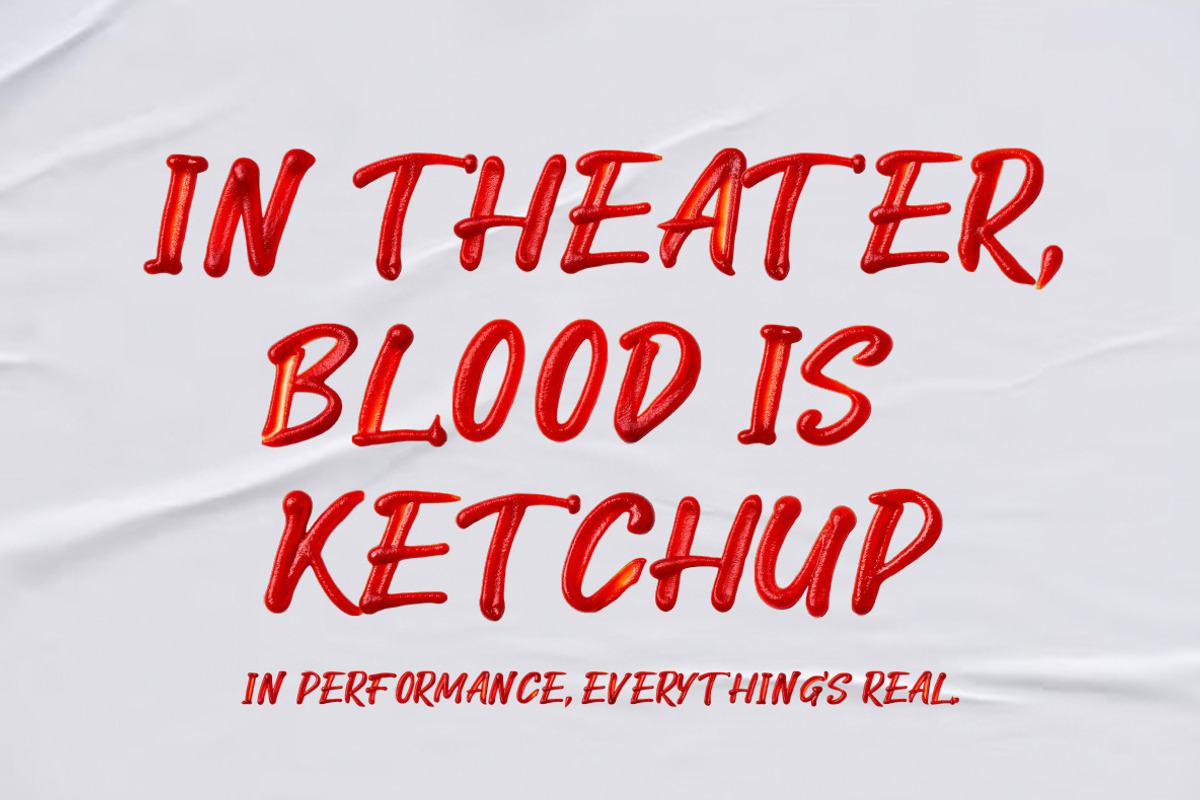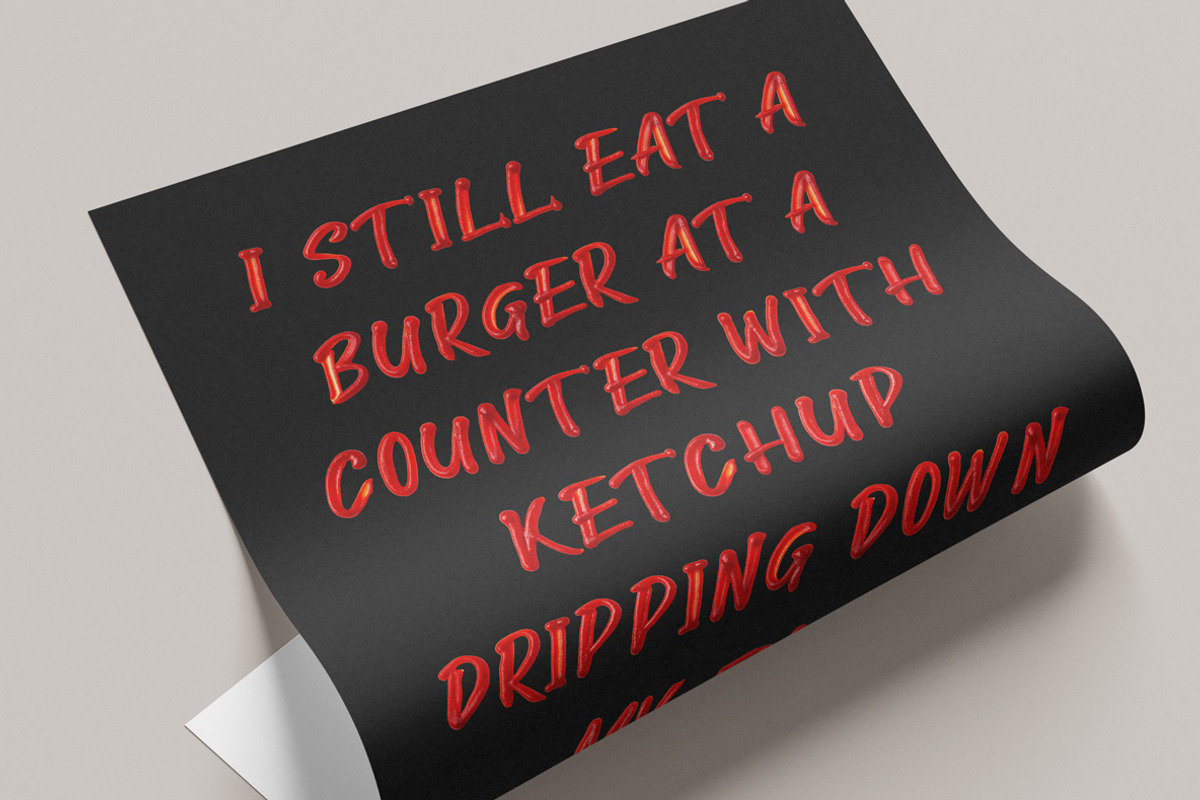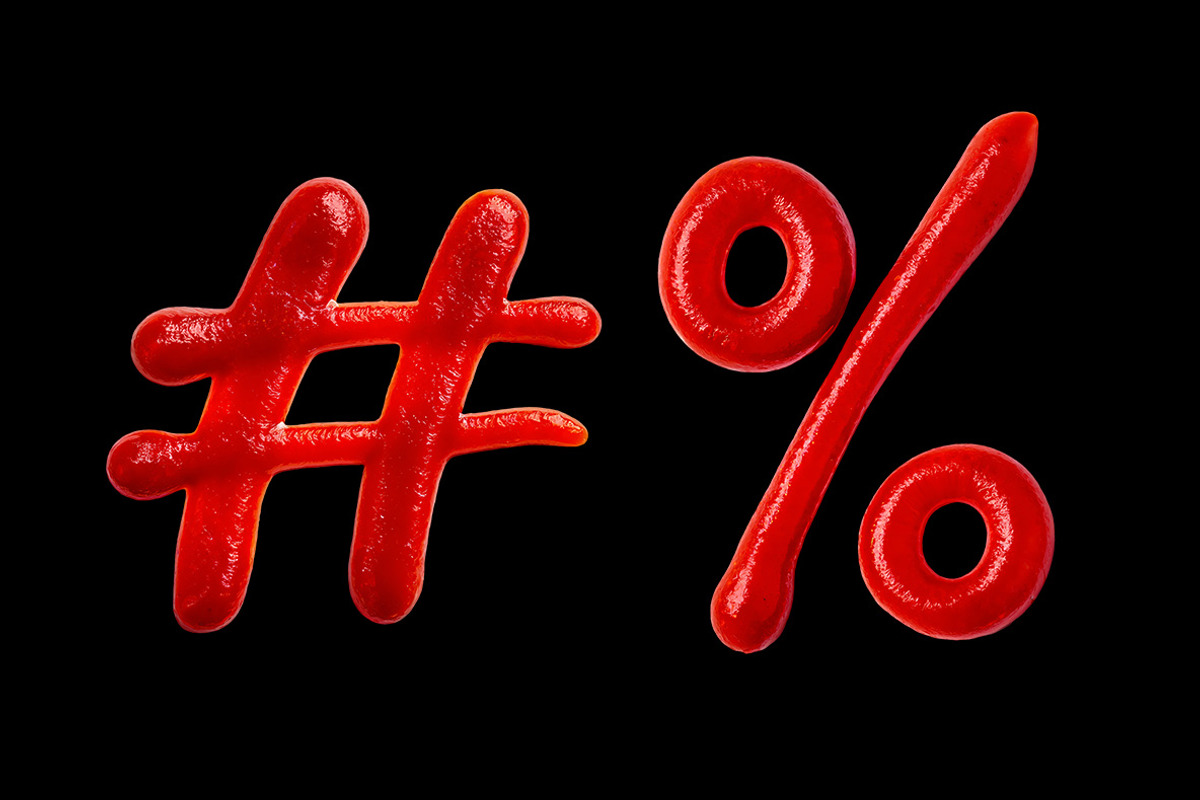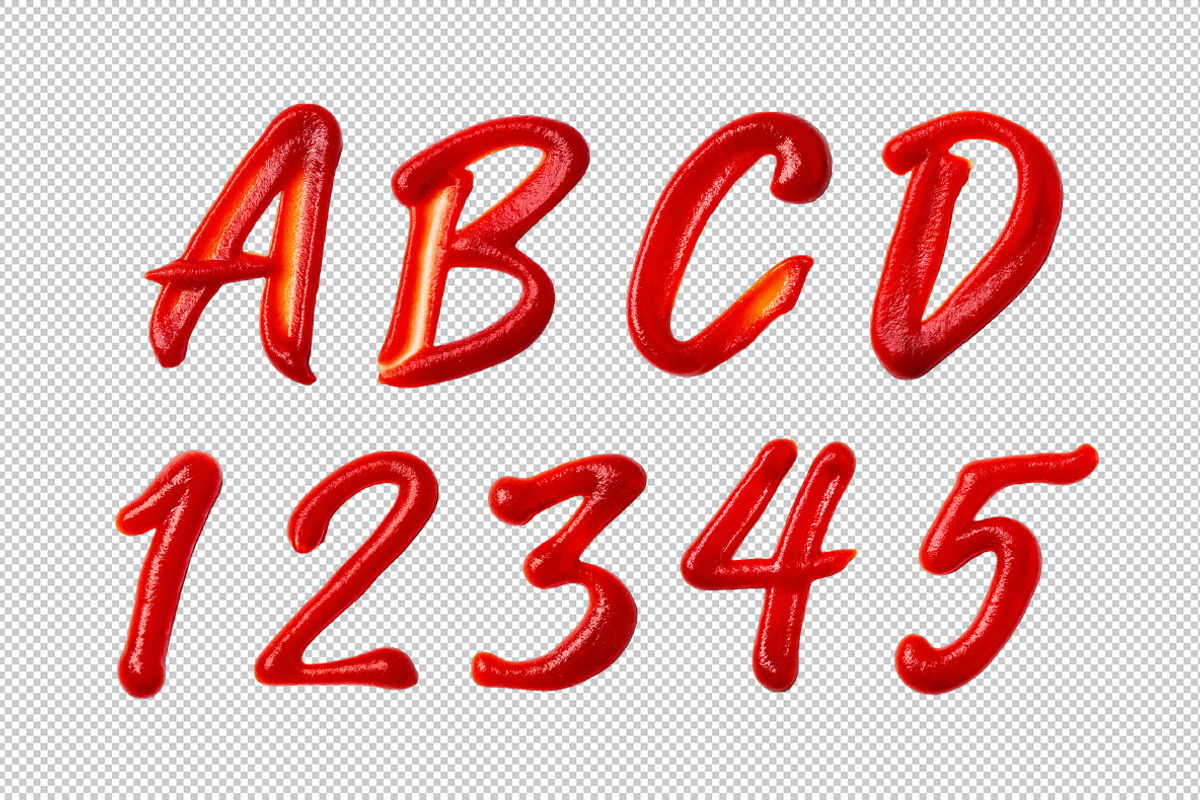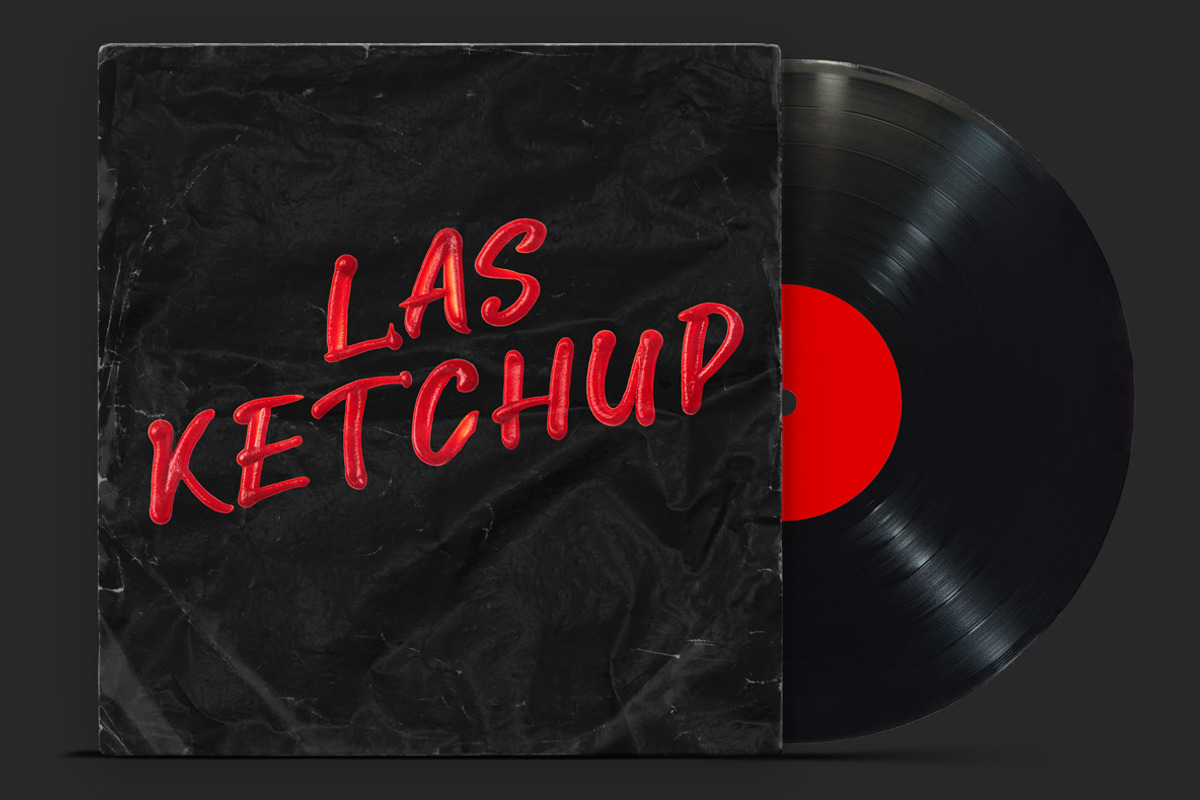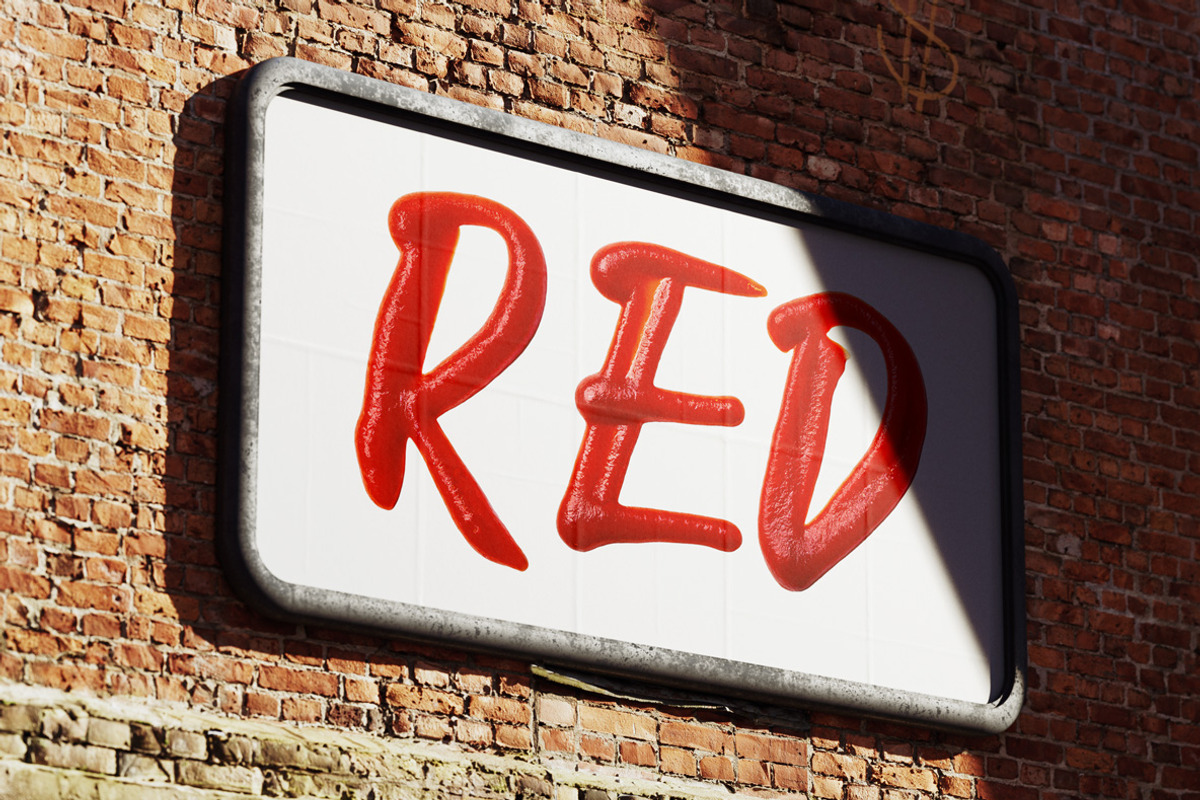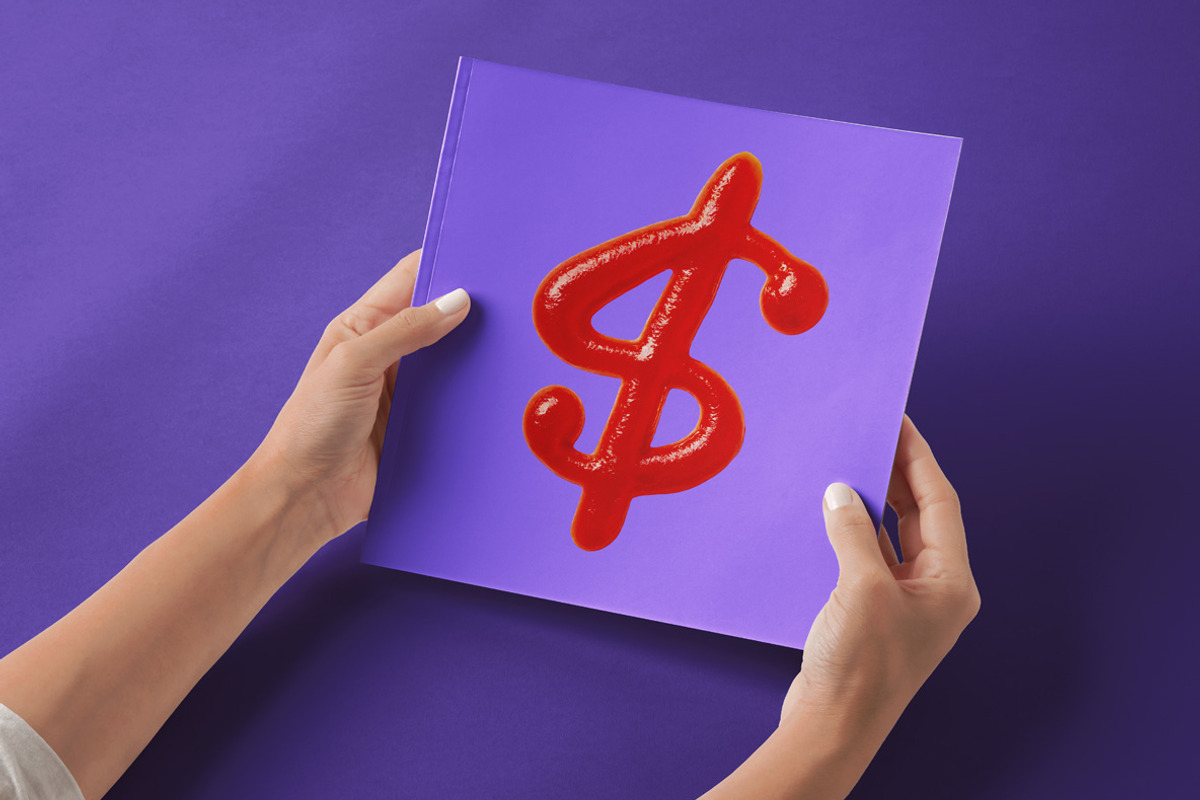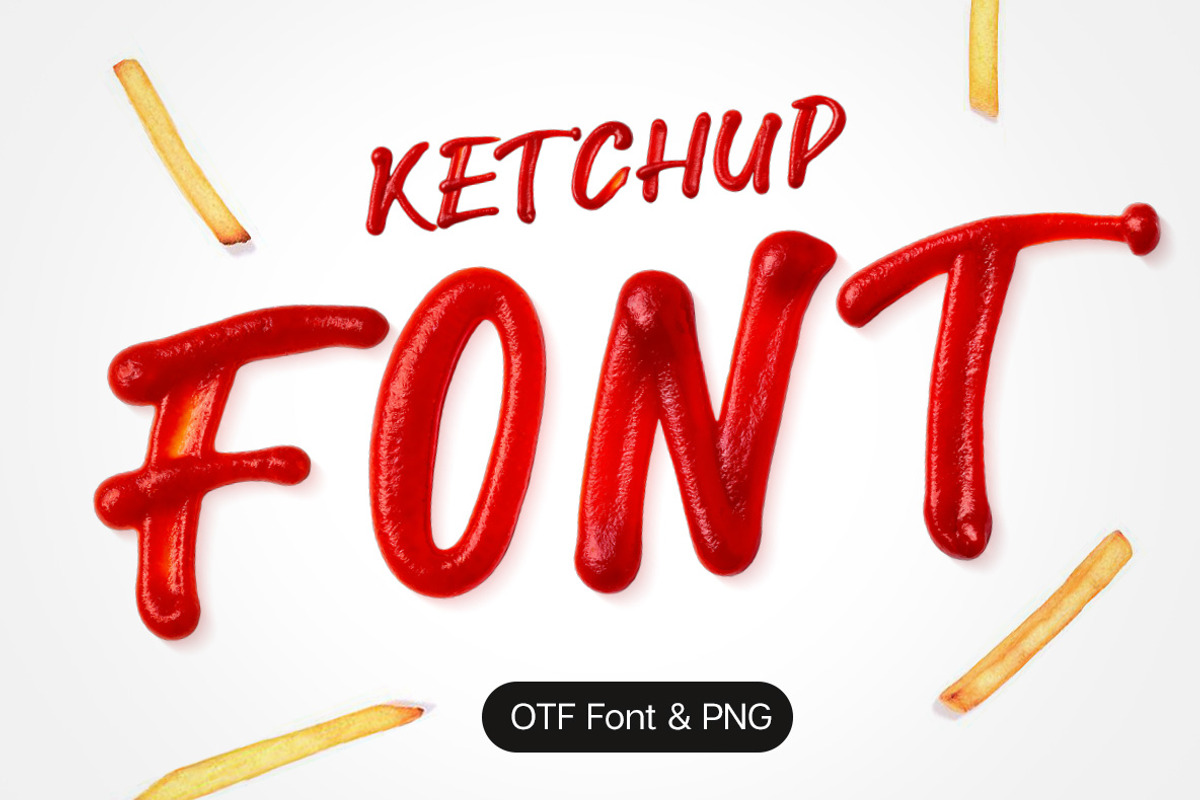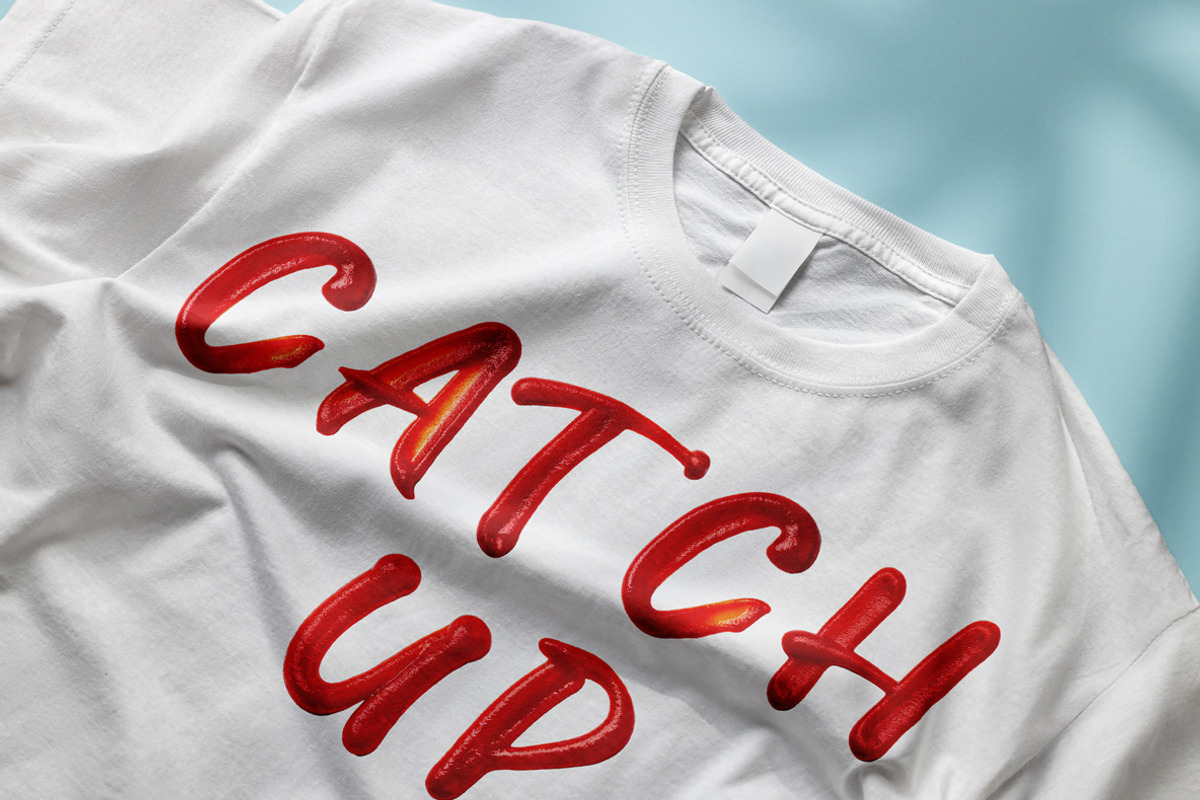
Ketchup Font
Ketchup Font is a playful typeface that mimics the look of thick, drippy ketchup. Every letter appears as if squeezed from a bottle, creating a fun, saucy texture perfect for food-related designs or quirky layouts. Ideal for apps that support color bitmap fonts!